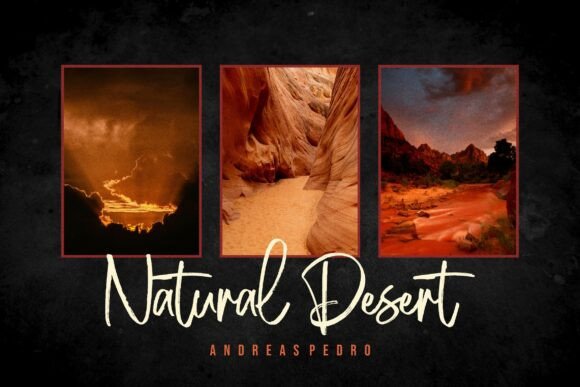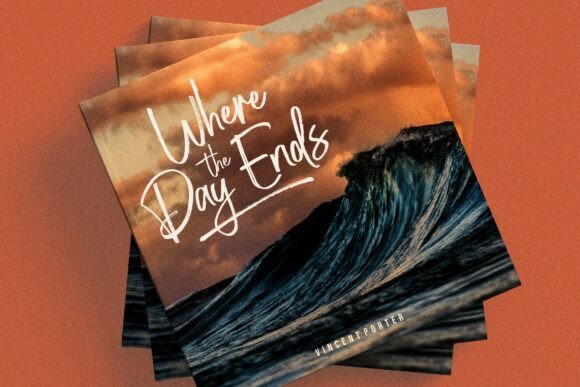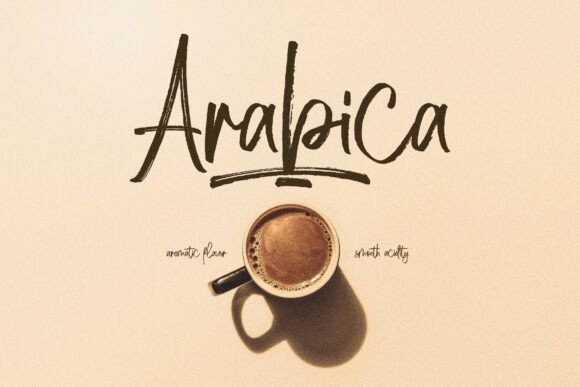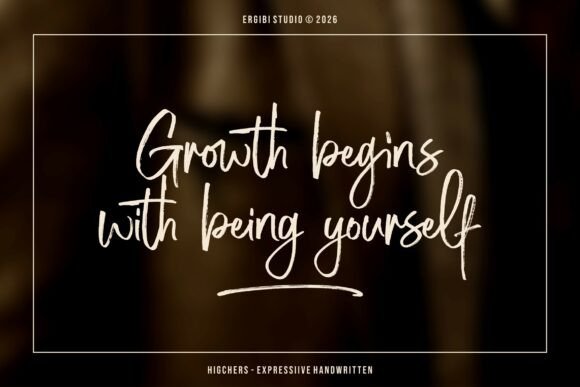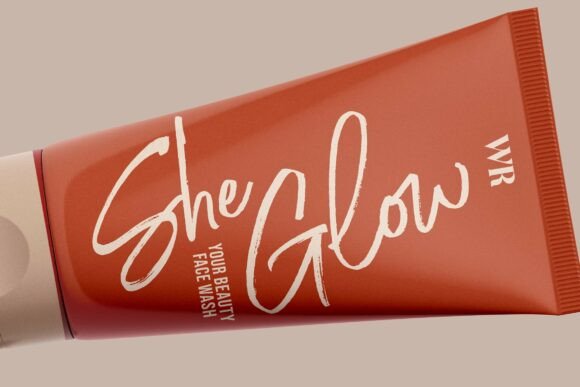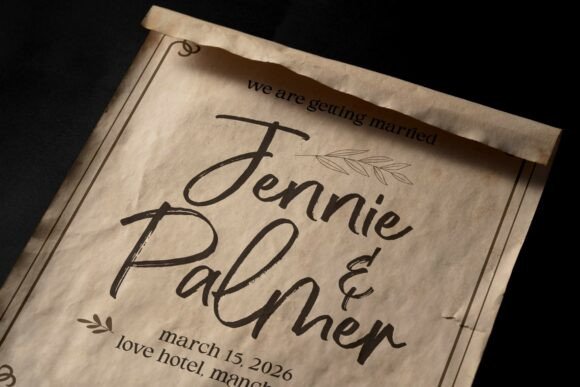
Introduction to Higchers Font
As designers, we’ve all been there – staring at a blank page, trying to find the perfect font to bring our creative project to life. But sometimes, the perfect font is just out of reach. That’s why we’re excited to introduce you to the Higchers Font, a high-quality, expressive handwritten script font that captures the natural flow and emotion of real handwriting.
Imagine being able to add a personal touch to your designs with a font that feels authentic and full of character. With its dynamic strokes and organic curves, the Higchers Font is perfect for branding, logos, packaging, social media, and any creative design project that requires a genuine, stylish, and expressive handwritten touch.
Key Features of Higchers Font
- High-quality, professional design perfect for creative projects and design resources.
- Each font includes 6 styles (Regular, Italic, Bold, Bold Italic, Outline, and Shadow) for added versatility.
- Designed with a clean and modern aesthetic, making it ideal for a wide range of design applications.
- Perfect for designers and artists looking for a unique and creative font to elevate their design projects.
Honest Review: Higchers Font
As a designer, I’ve had the opportunity to experiment with various fonts for my creative projects, and Higchers Font has been a pleasant surprise. With its high quality and unique design, it’s a valuable addition to any design resource.
One of the standout features of Higchers Font is its transparent background, which makes it easy to use in a variety of design scenarios. The font is also highly customizable, allowing designers to tailor it to their specific needs.
- ✨ Highly customizable for a tailored look
- ⚠️ Limited font weights and styles, which may not be suitable for all design projects
- ⚠️ Not ideal for use in small text sizes due to its unique design
Overall, I’m impressed with Higchers Font and its potential to elevate my design projects. While it has some limitations, its unique design and high quality make it a valuable addition to any design resource.
Tips for Getting the Most Out of Higchers Font
Experiment with different font sizes, colors, and combinations to create a unique visual identity. Use Higchers Font on transparent backgrounds to add depth and interest to your designs.
Higchers Font is perfect for:
- Digital designs, such as social media graphics and website headers
- Print materials, like business cards and brochures
- Presentations and documents, such as PowerPoint and Word files
Alternatives to Higchers Font
The Great Vibes Font is a high-quality script font that is perfect for creative projects requiring a unique and elegant touch. Its transparent background makes it ideal for use on images or videos with busy backgrounds. Great Vibes Font is a free download that can be used for both personal and commercial projects.
Compared to Higchers Font, Great Vibes Font has a more refined and sophisticated look, making it suitable for projects that require a touch of luxury. However, Higchers Font has a more playful and casual feel, making it ideal for projects that require a relaxed tone.